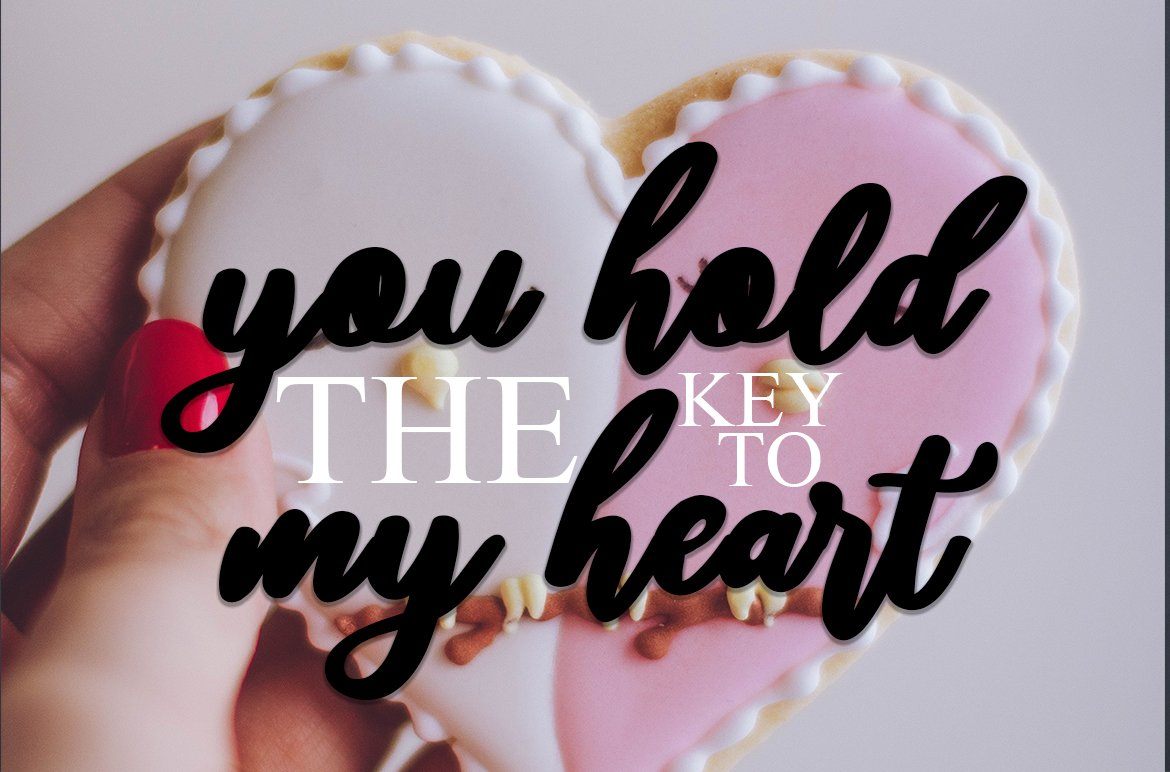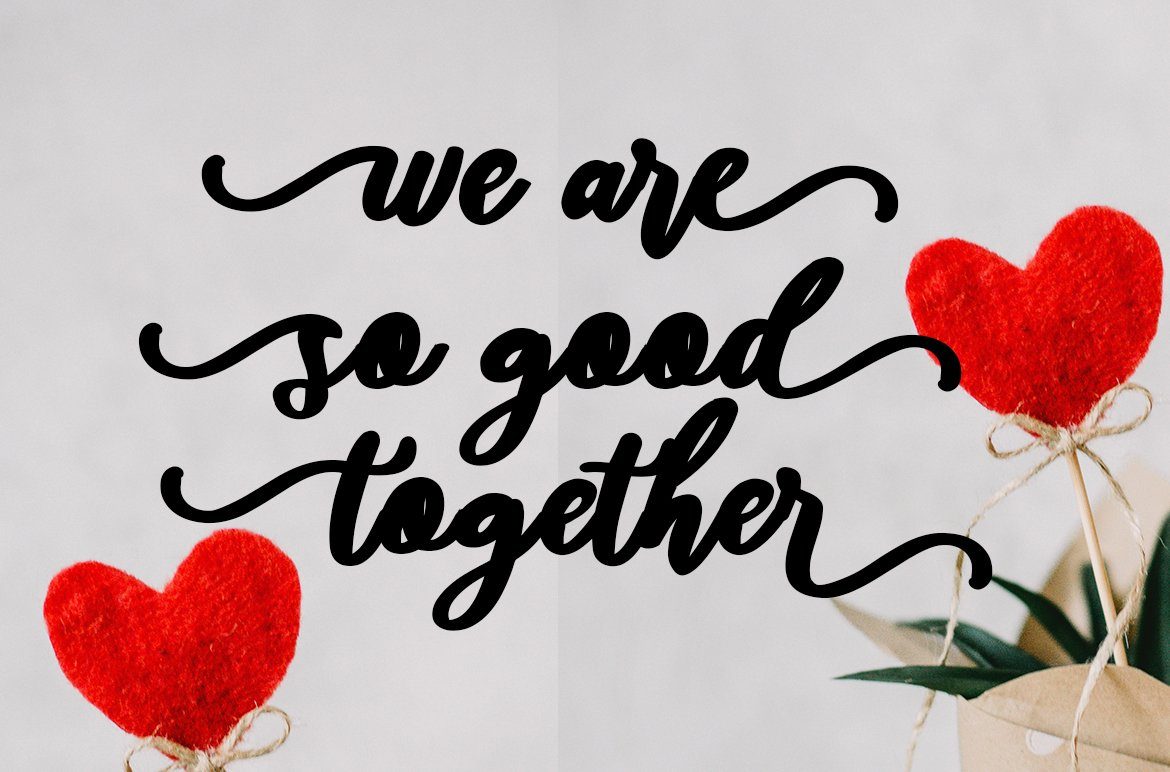
About Daylight Script
Introducing Daylight Script a new fresh & modern script with a handmade calligraphy style, decorative characters So beautiful on the invitation like greeting cards, branding materials, business cards, quotes, posters, and more!! The ZIP file are include the following : Daylight Script Script TTF Daylight Script Script OTF to use a variety of flying machines, you need a program that supports OpenType features such as Adobe Photoshop Cs / Adobe Photoshop CC, Adobe Illustrator CS / Adobe Illustrator CC, Adobe Indesign, and Corel Draw and many more programs that support OpenType.If you do not have a program that supports OpenType, you can access all the alternate glyphs using Font Book (Mac) or Character Map (Windows) If you have any question, don’t hesitate to contact me by email. Thanks and happy designing 🙂 Thank You for purchase!